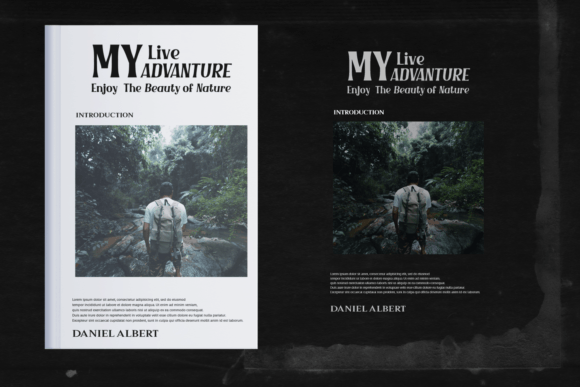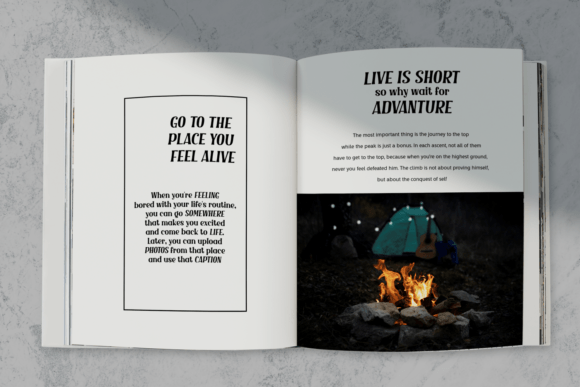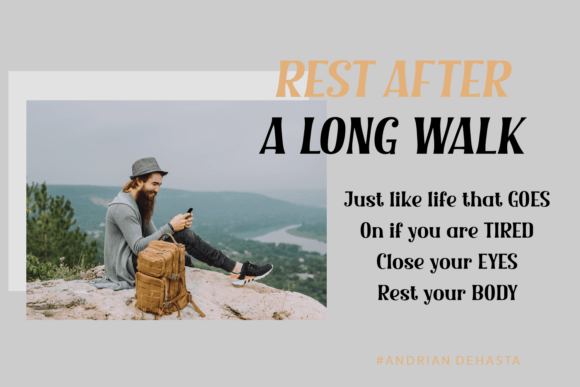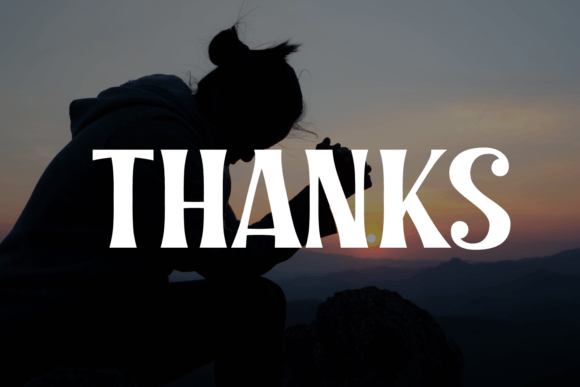
About Daily Font: A Timeless Serif Font for Modern Design
When it comes to creating visually stunning designs, typography plays a crucial role. A well-chosen font can elevate your project and convey the right message to your audience. Daily Font is a modern and clean serif font that has gained popularity among designers and crafters for its sophisticated and refined aesthetic. In this article, we’ll explore the features and benefits of Daily Font and why it’s an excellent choice for your next design project.
The Design of Daily Font
Daily Font boasts a timeless design that exudes professionalism. The letters are well-defined and evenly spaced, with subtle serifs that add a touch of elegance. The font’s clean lines and minimalist approach make it versatile and suitable for a wide range of applications, from digital media to print materials. The design of Daily Font is characterized by:
- Well-defined letters: Each letterform is carefully crafted to ensure clarity and legibility, making it easy to read and understand.
- Even spacing: The letters are evenly spaced to create a sense of rhythm and harmony, which enhances the overall visual appeal of the text.
- Subtle serifs: The serifs add a touch of sophistication and elegance to the font, making it perfect for designs that require a high level of professionalism.
Key Features of Daily Font
Daily Font offers a range of features that make it an attractive choice for designers and crafters. Some of the key features include:
- Modern and clean design: The font’s modern and clean design makes it perfect for contemporary designs that require a fresh and sleek look.
- Serif font: The serif font style adds a touch of elegance and sophistication to the text, making it suitable for designs that require a high level of professionalism.
- Timeless appeal: The font’s timeless design ensures that it remains relevant and stylish for years to come, making it a great investment for designers and crafters.
- Versatility: Daily Font is versatile and can be used for a wide range of applications, from digital media to print materials.
Benefits of Using Daily Font
Using Daily Font offers a range of benefits for designers and crafters. Some of the benefits include:
- Enhanced professionalism: The font’s sophisticated and refined aesthetic adds a touch of professionalism to your designs, making them more appealing to your audience.
- Increased legibility: The well-defined letters and even spacing ensure that the text is easy to read and understand, making it perfect for designs that require clear communication.
- Flexibility: Daily Font is versatile and can be used for a wide range of applications, from digital media to print materials, making it a great addition to your font library.
- Timeless appeal: The font’s timeless design ensures that your designs remain stylish and relevant for years to come, saving you time and money on redesigns.
Who Can Benefit from Daily Font?
Daily Font is an excellent choice for a wide range of designers and crafters, including:
- Graphic designers: Graphic designers can use Daily Font for a variety of projects, from branding and advertising to digital media and print materials.
- Web designers: Web designers can use Daily Font to create visually stunning websites that are both stylish and functional.
- Crafters: Crafters can use Daily Font for a variety of projects, from handmade cards and invitations to DIY crafts and decorations.
- Marketing professionals: Marketing professionals can use Daily Font to create professional-looking marketing materials, such as brochures, flyers, and business cards.
| Font Name | About Daily Font |
| Author | Rian (7NTypes) |
Daily Font is a modern and clean serif font that offers a sophisticated and refined aesthetic. Its timeless design, well-defined letters, and subtle serifs make it an excellent choice for designers and crafters who require a high level of professionalism in their designs. With its versatility, flexibility, and timeless appeal, Daily Font is a great addition to any font library. Whether you’re a graphic designer, web designer, crafter, or marketing professional, Daily Font is an excellent choice for your next design project.